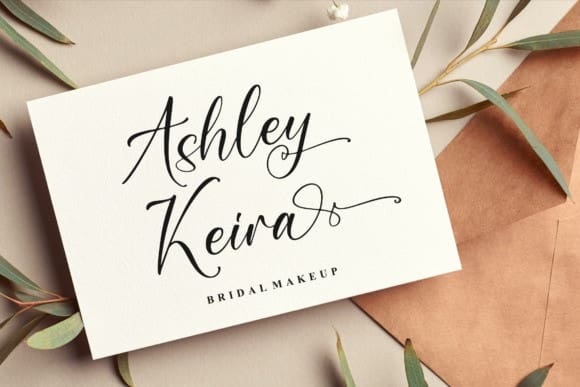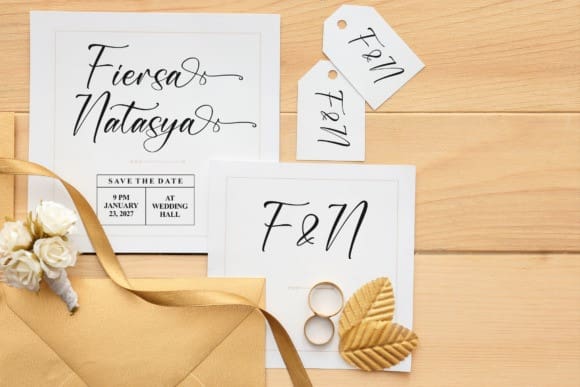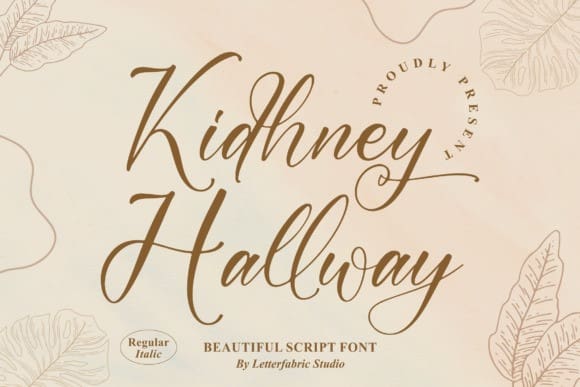
Kidhney Hallway Font
Kidhney Hallway Font is a chic styled script font. It is a suitable for any projects such as: logos, branding projects, homeware designs, product packaging, mugs, quotes, posters, and a couple of other creations. This font is PUA encoded which means you can access all of the amazing glyphs and ligatures with ease!